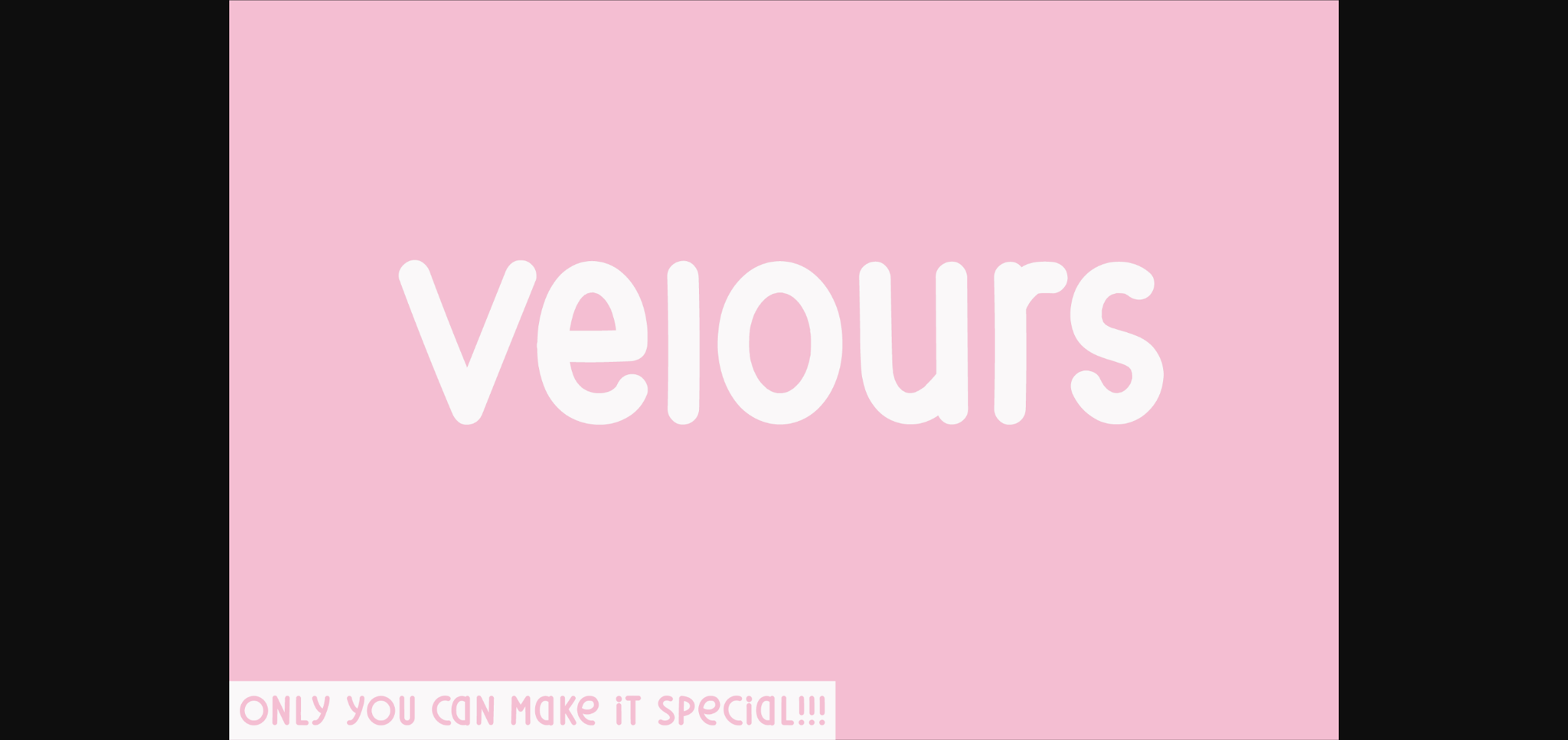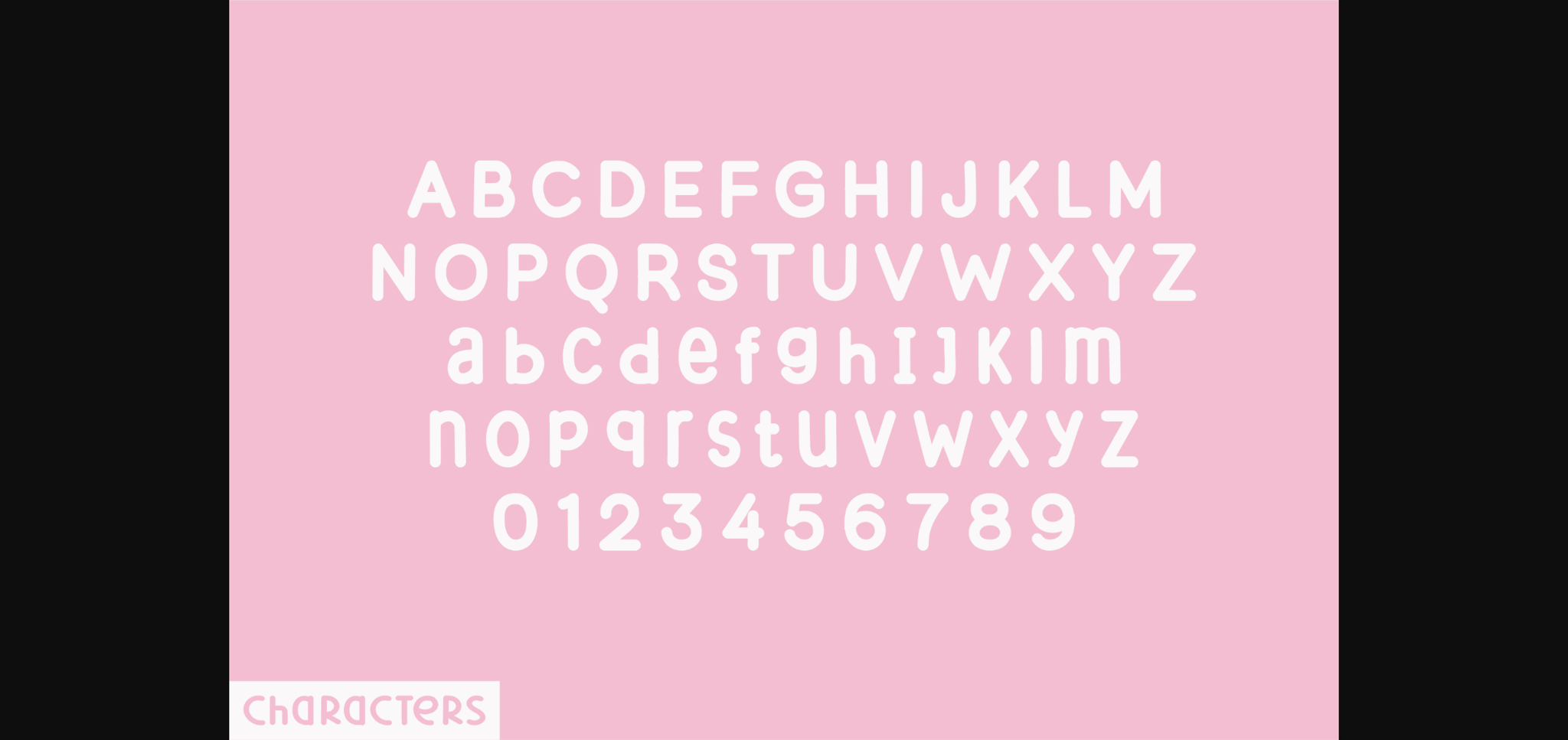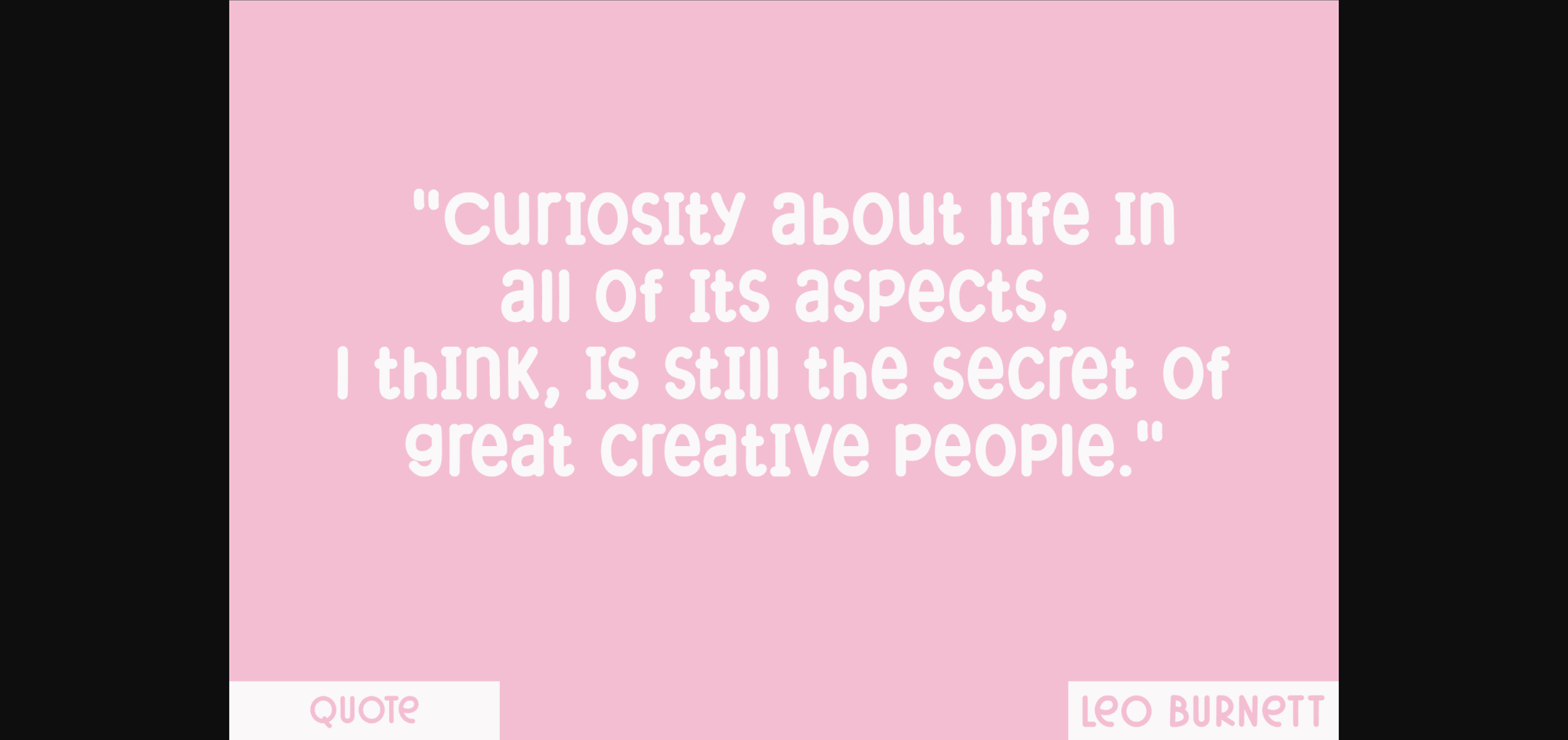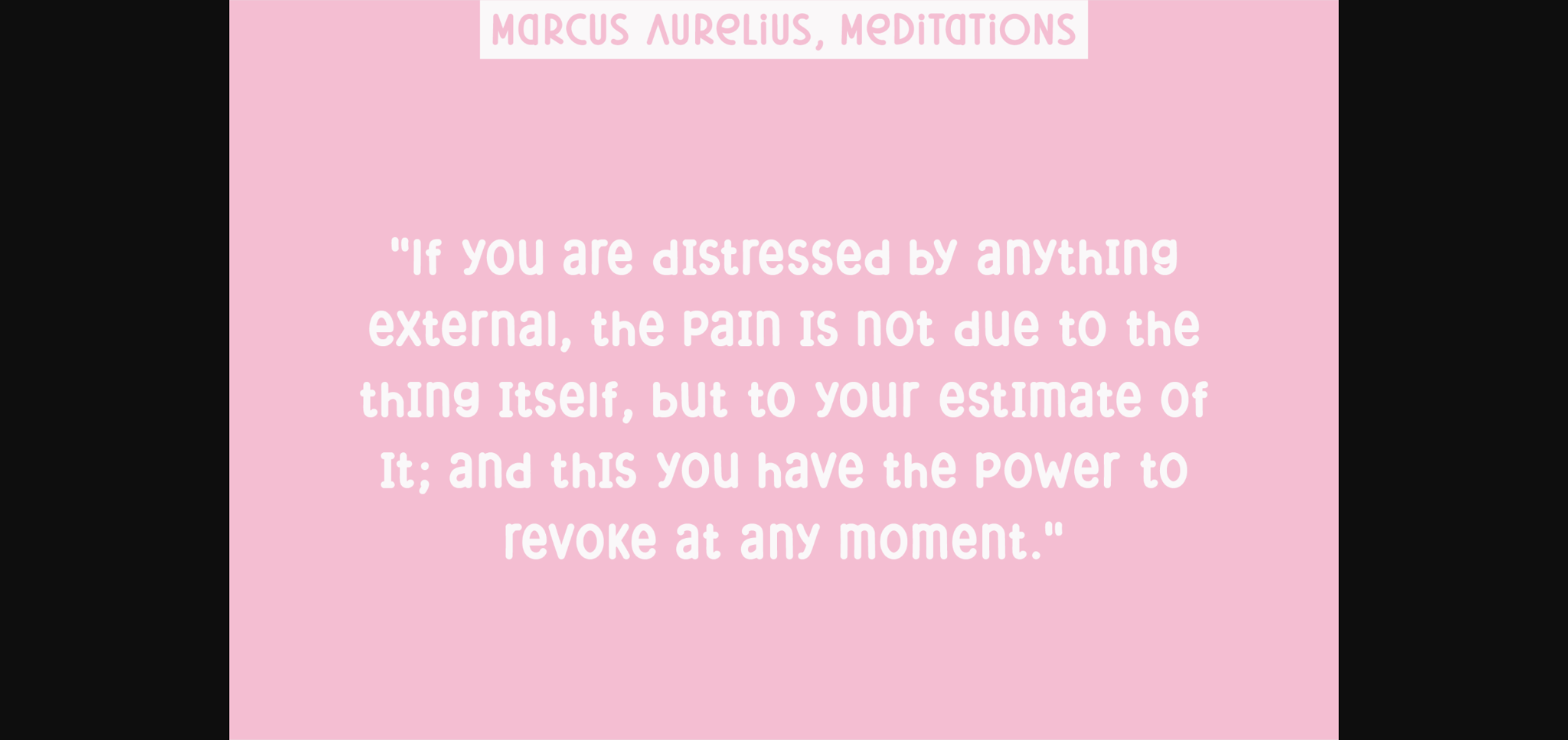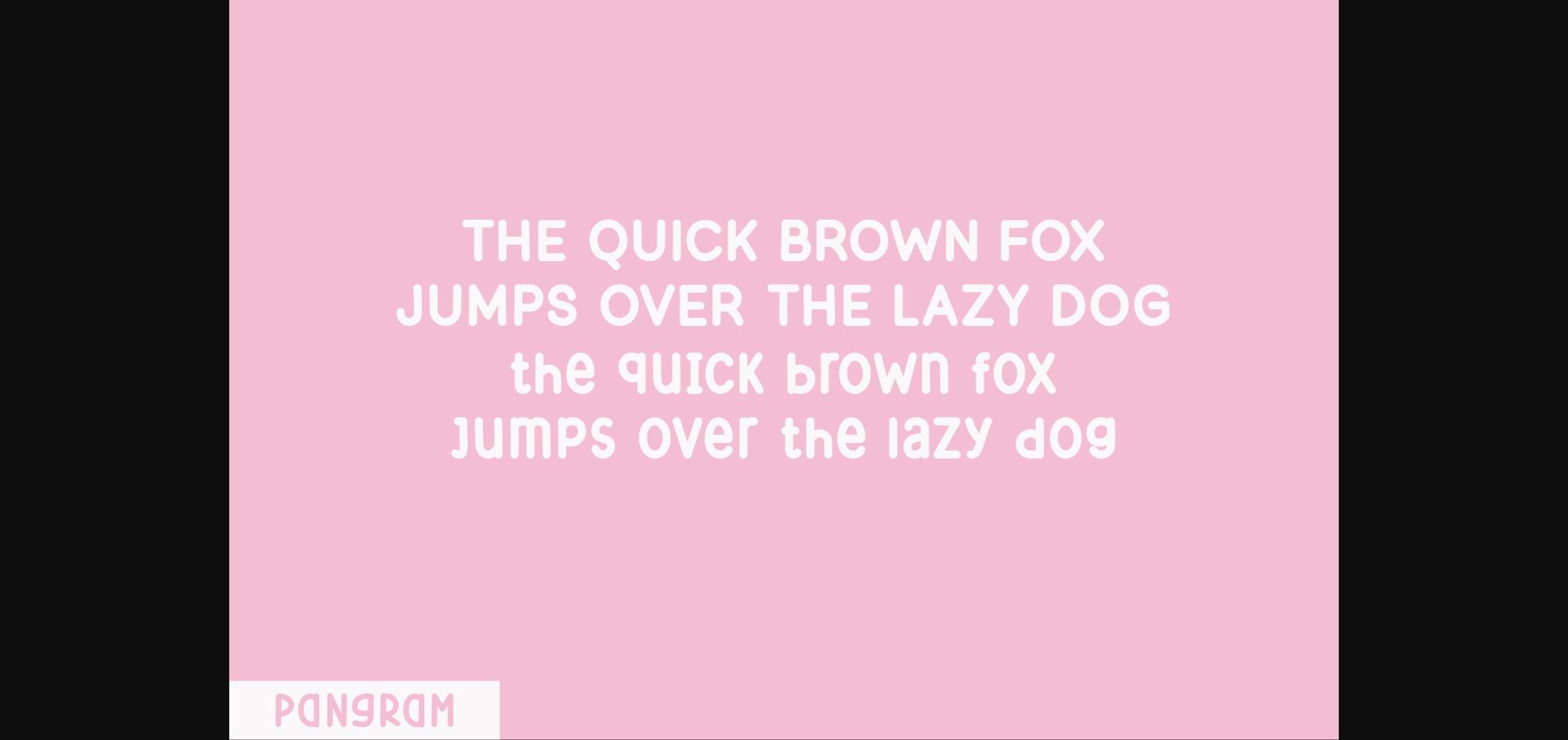
Velours Font
About Velours Font
Immerse yourself in the essence of Velours, a captivating display font embodying the simplicity of a sans serif design elevated by a dash of undeniable uniqueness. Each alphanumeric character is sculpted with subtly rounded tips, adding a tasteful touch of gentility that conjures an environment of allure and sweetness. Velours is the quintessential choice when your design aims to communicate a message blending the ebullience of entertainment with the aesthetics of beauty. Delight in the elegance of Velours, where sophistication meets charm in every keystroke.